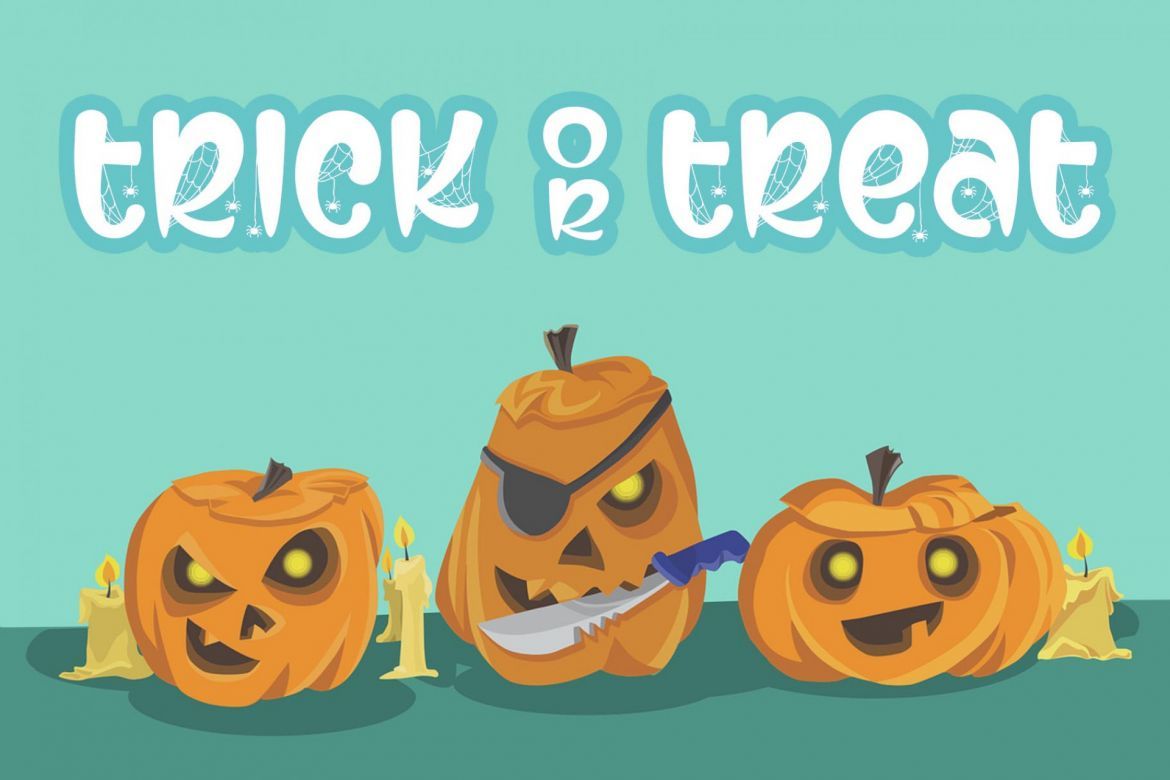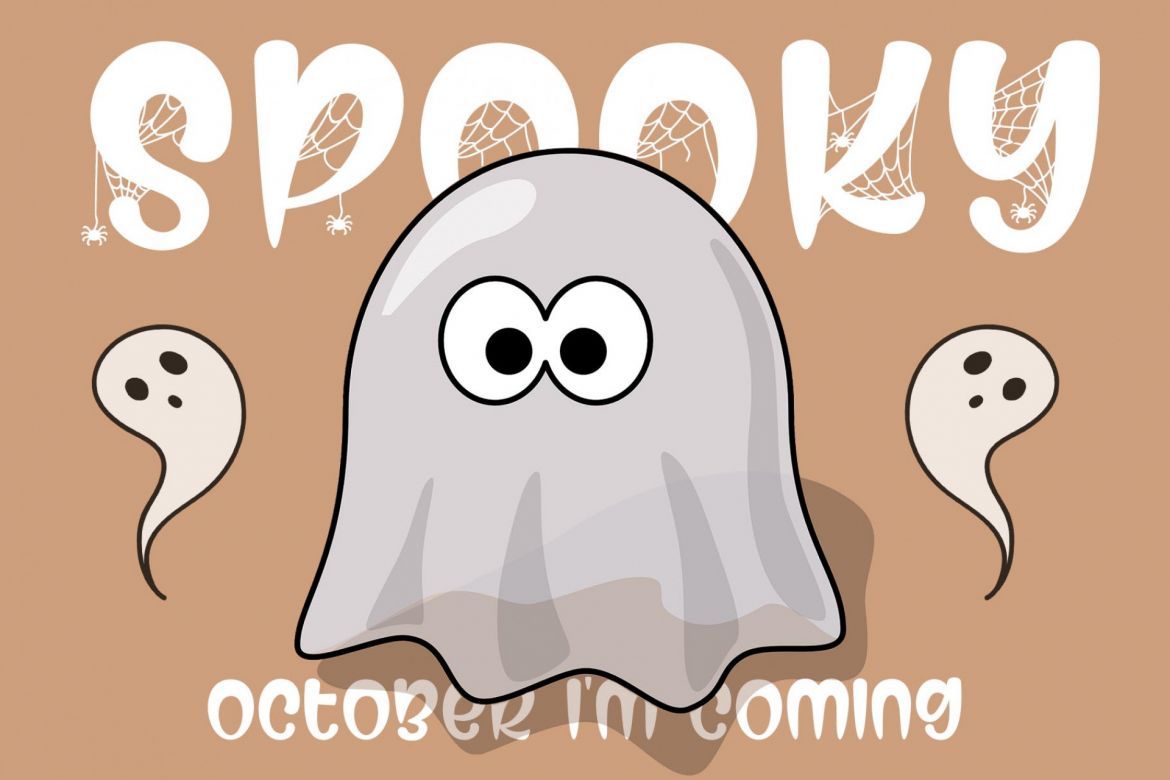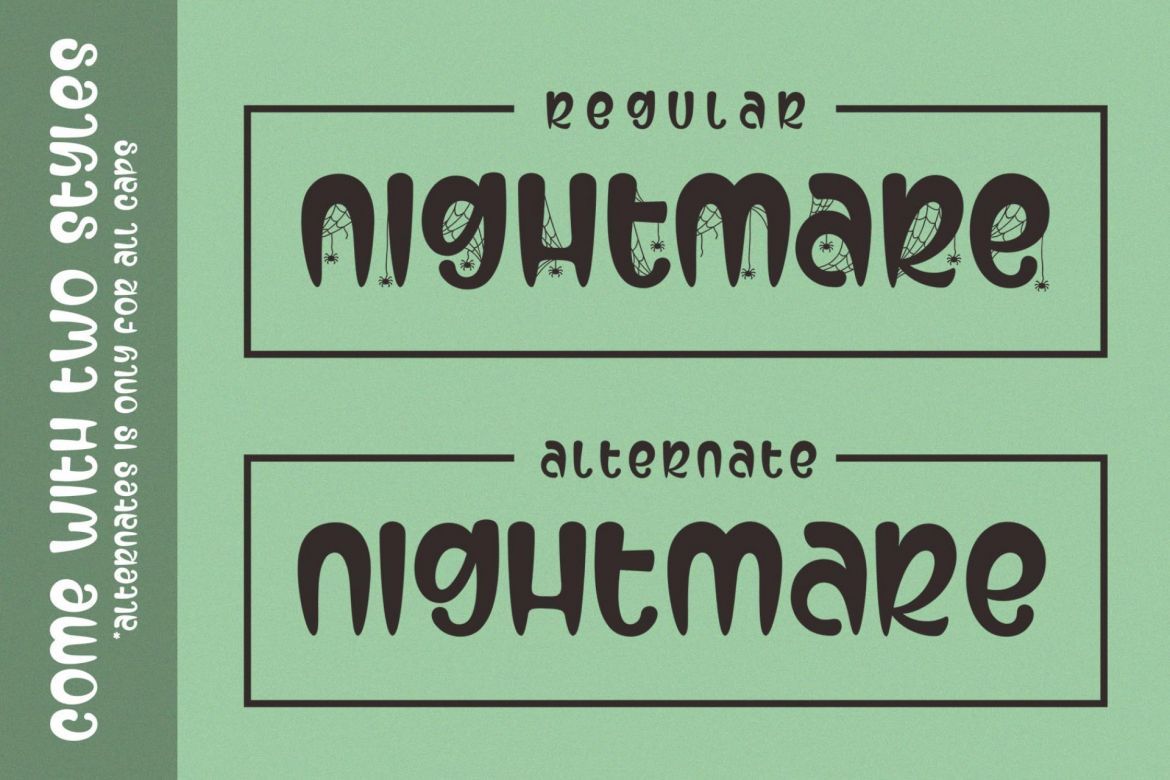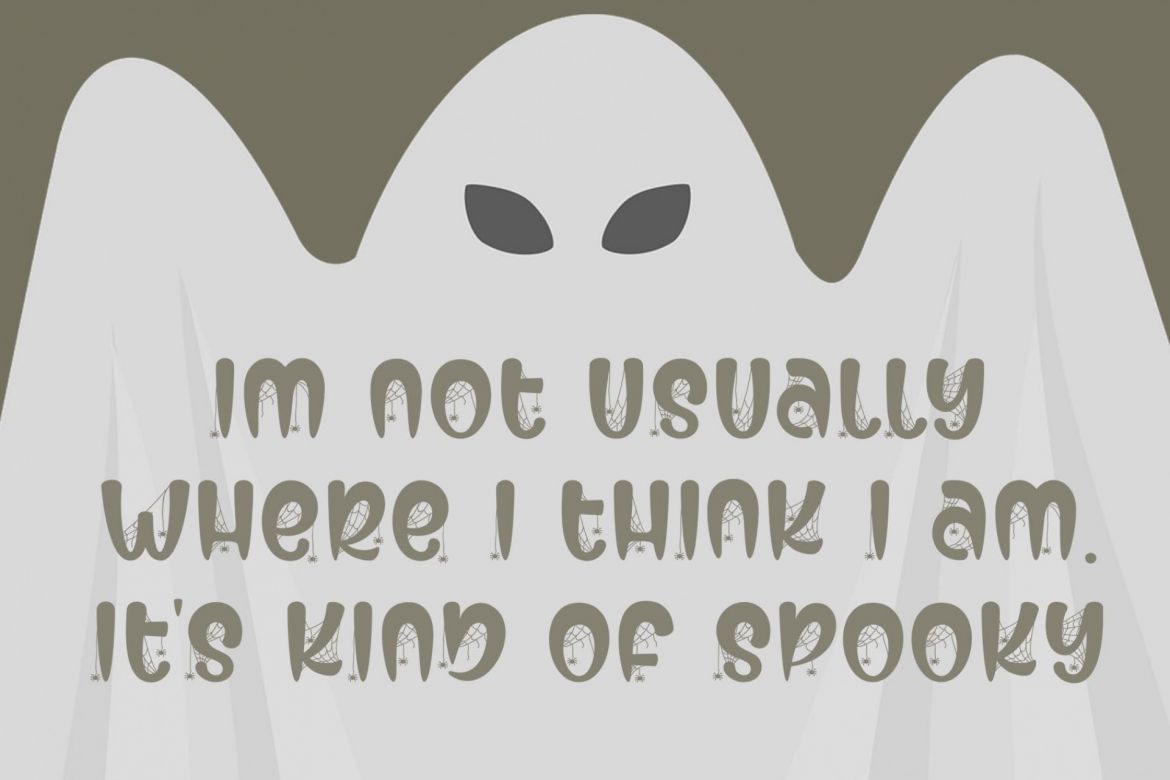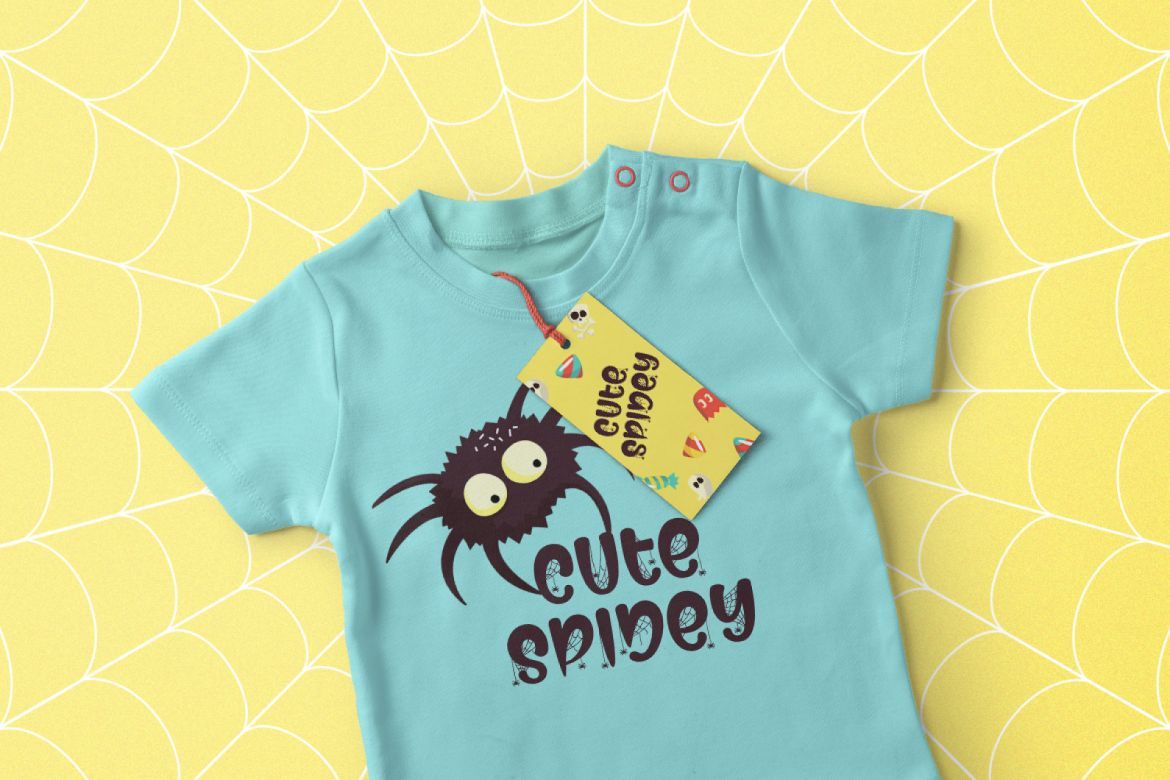
Secret Midnight Spooky Font
Secret Midnight is a fun & spooky font The capital and lowercase letters are the SAME. Came with 2 styles. spiders/webs ornament and clean version. it's perfect for halloween party, headings, blogs, logos, invitations and more!
• cute stylish
• two font style